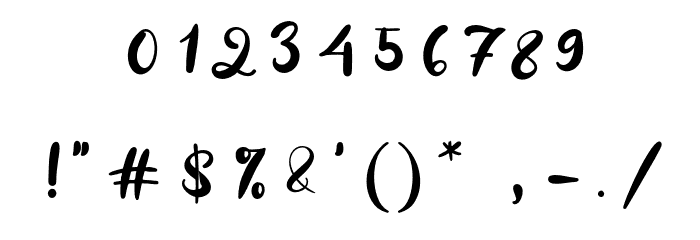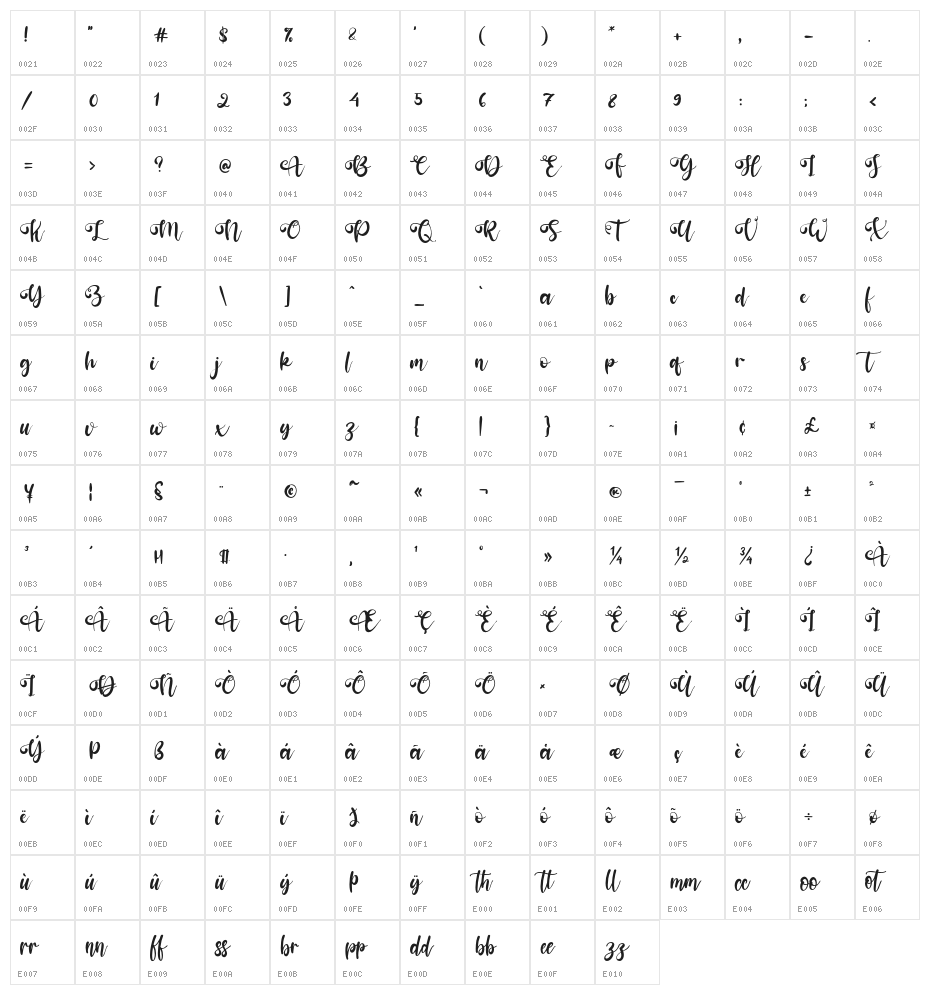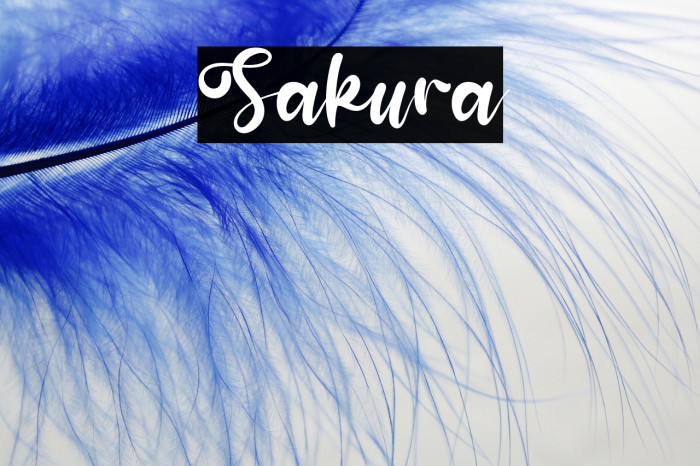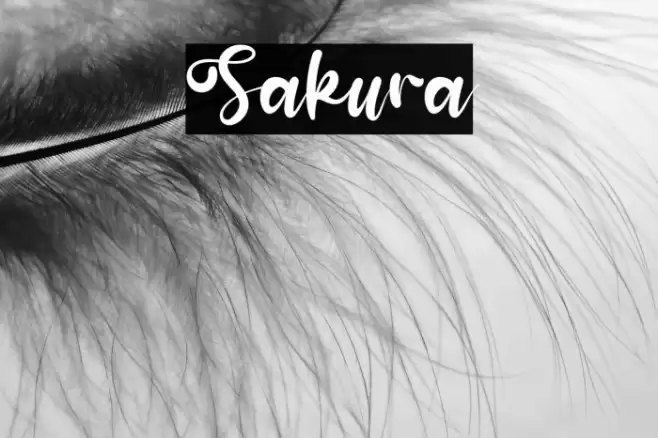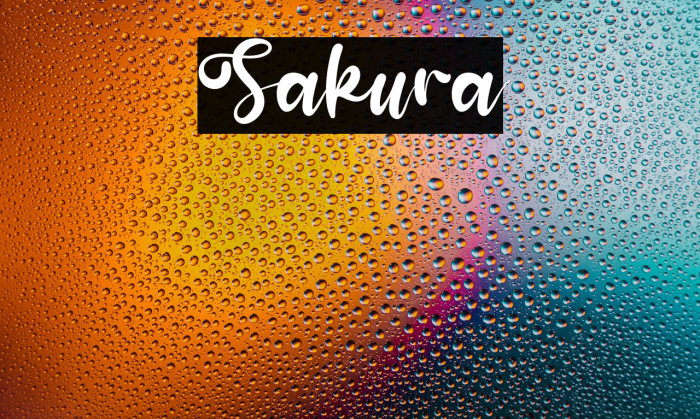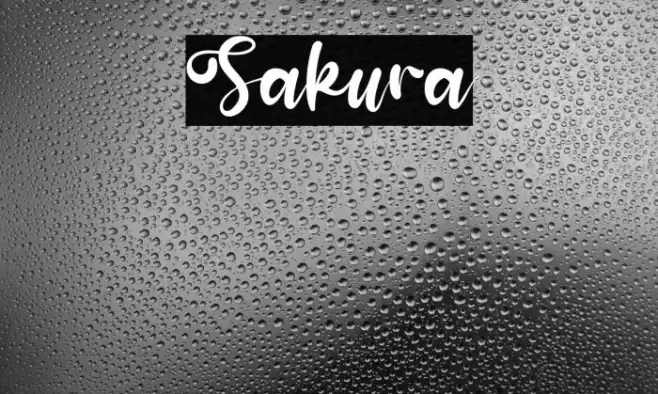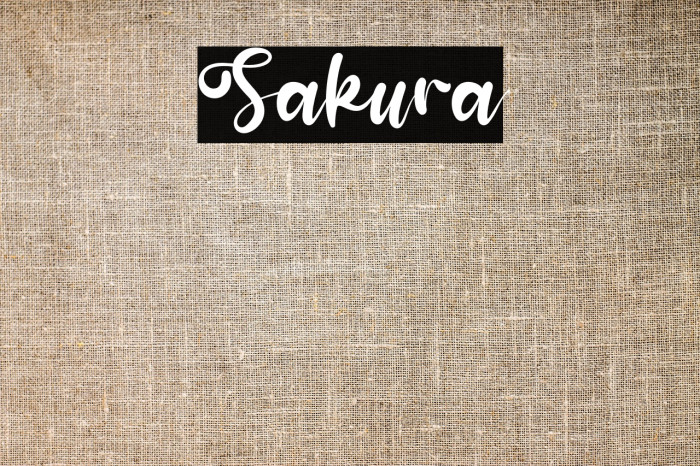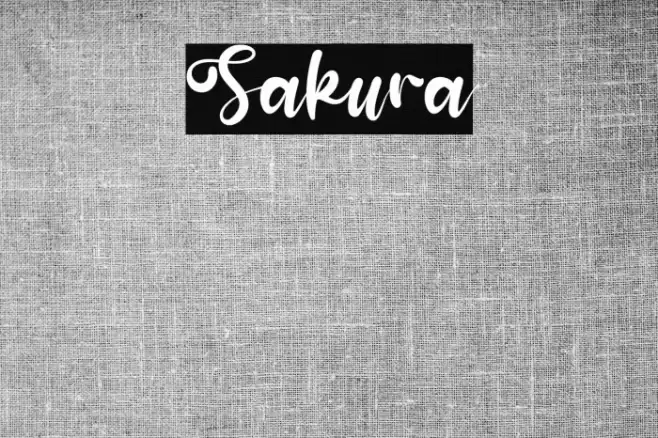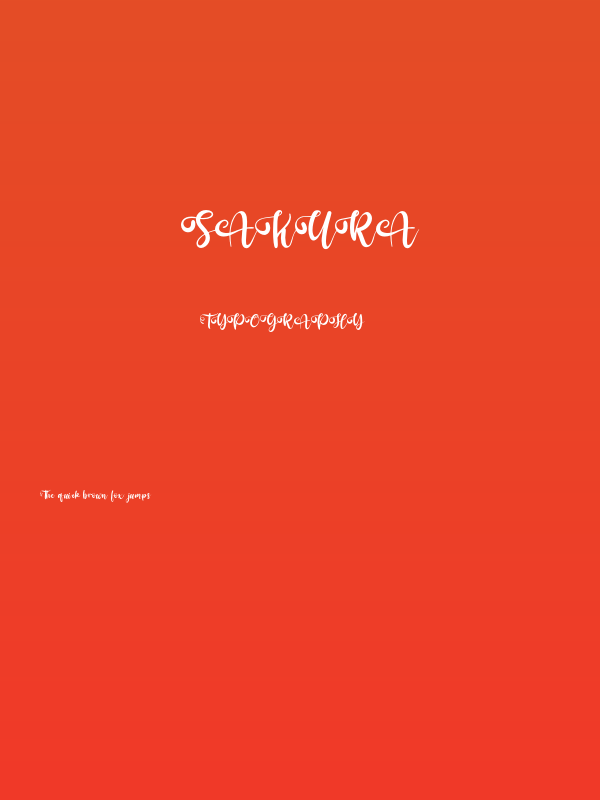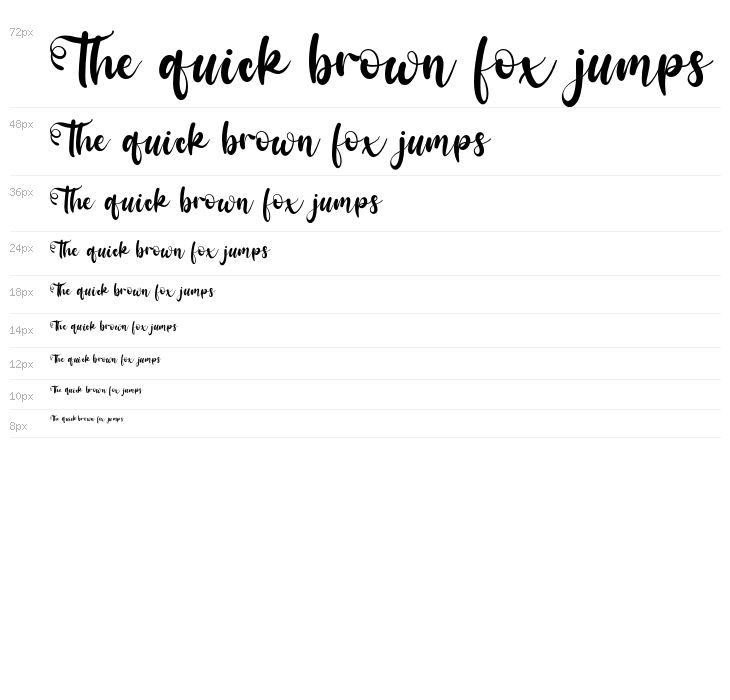
Sakura Font
Sakura Description
This font exudes a playful and elegant charm with its flowing, cursive style. The uppercase letters are adorned with intricate swirls and loops, adding a whimsical touch. The lowercase letters maintain a smooth, connected script that enhances readability while retaining an artistic flair. The numerals are clear and consistent, complementing the overall design. Special characters are thoughtfully crafted to match the font's aesthetic, making it versatile for various uses. The bold strokes and high contrast in the letterforms give it a striking appearance, perfect for making a statement.